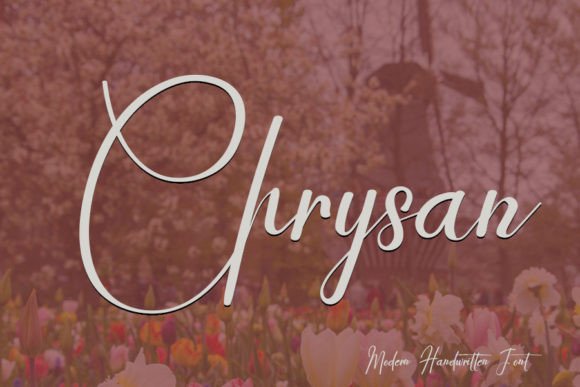
Unveil the exquisite Chrysan Font, a masterpiece of digital calligraphy that will transform your creative endeavors into breathtaking works of art. Step into a world of elegance and sophistication with this stunning script font, meticulously crafted by the renowned NYA Letter. Experience the allure of Chrysan, a harmonious blend of classicism and modernity, designed to elevate your designs to new heights of beauty.
With its graceful curves and impeccable balance, Chrysan captivates the essence of handwritten artistry. Not too delicate, not too bold—Chrysan strikes the perfect chord, ensuring your projects exude a timeless charm. Let your creativity flow as you explore the boundless possibilities offered by this versatile font.
Whether you're crafting a heartfelt wedding invitation, designing a captivating logo, or adding a touch of whimsy to your social media posts, Chrysan is your steadfast companion. Its versatility knows no bounds, accommodating a myriad of styles and themes. Unleash your imagination and witness the transformative power of Chrysan as it breathes life into your digital creations.